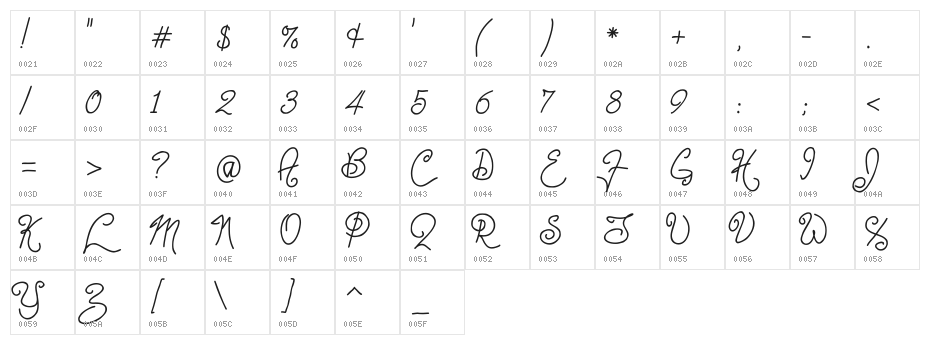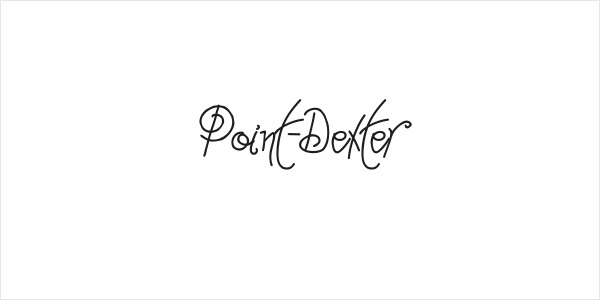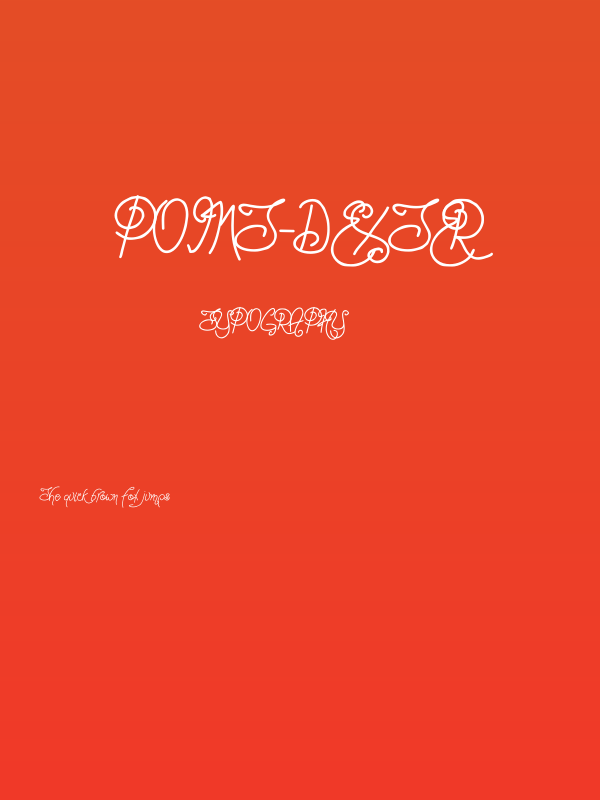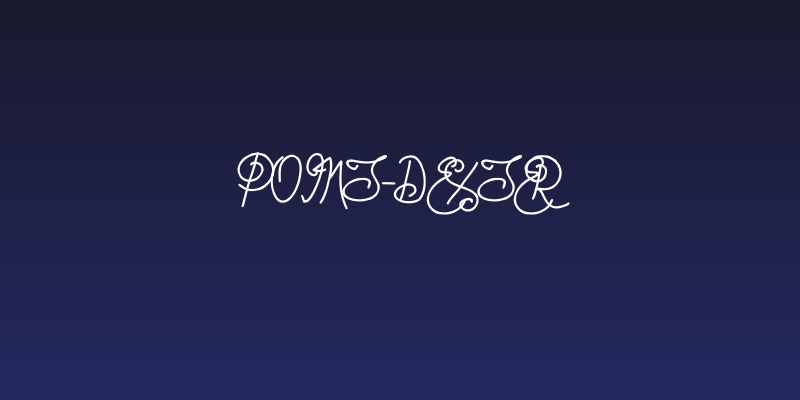
Point-Dexter Font
Point-Dexter Description
This font features an intricate, flowing script style that exudes elegance and sophistication. The characters are highly stylized with elaborate loops and swirls, giving each letter a unique and artistic flair. The uppercase letters are particularly ornate, with exaggerated curves and flourishes that make them stand out. The lowercase letters maintain a consistent style, with smooth connections and a fluid motion that enhances readability despite the decorative nature. Numbers and special characters are designed to match the overall aesthetic, ensuring a cohesive look across all text. This font is ideal for projects that require a touch of elegance and creativity, such as invitations, branding, or artistic designs.
| Use Case | Logos, Invitations, Decorative headings |
| Proposed Projects | Ideal for wedding invitations, luxury branding, artistic designs, and decorative headings. |